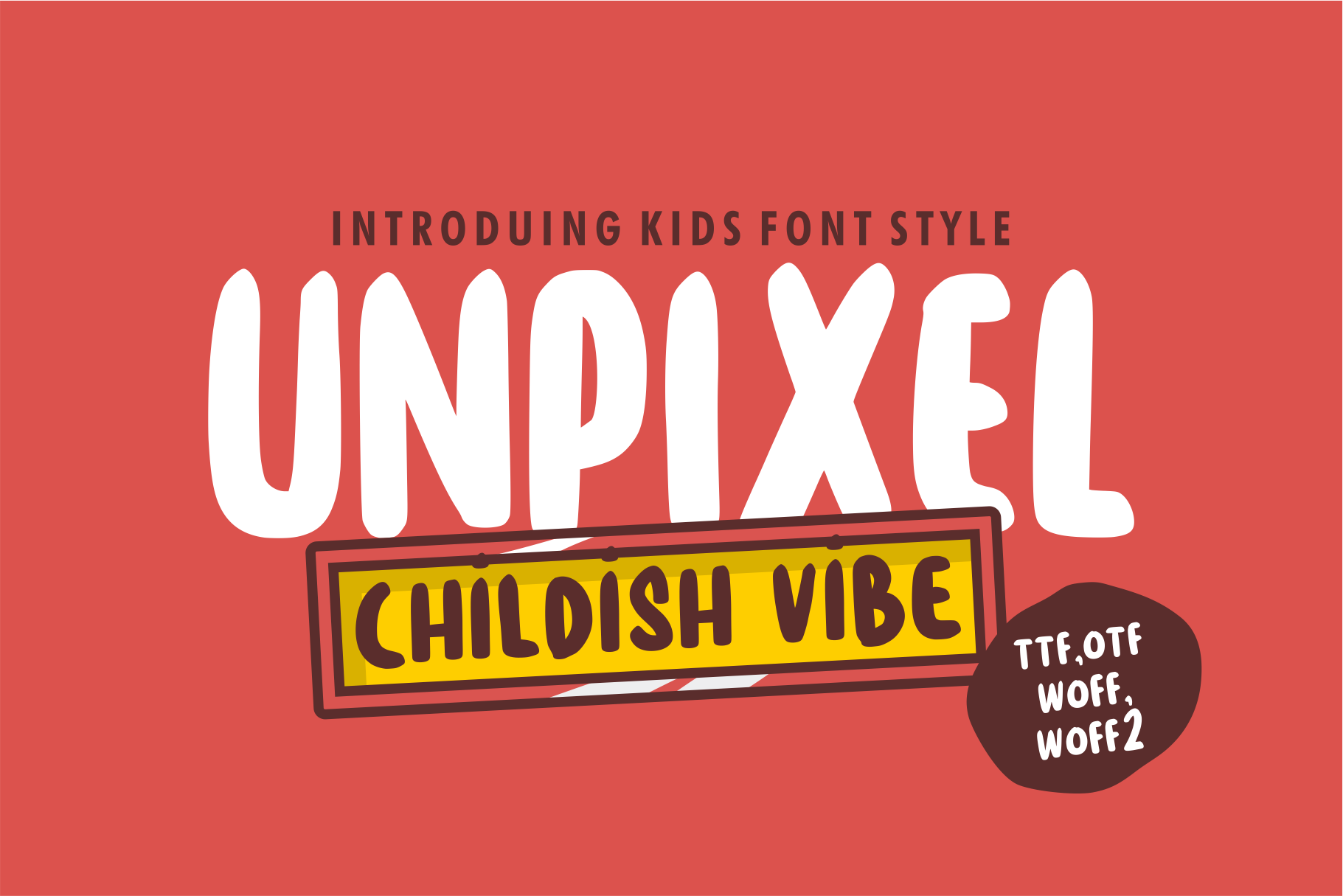
Unpixel Playful Handwritten Font
Unpixel is font handwritten kids style, this font is suitable for logos, cover titles, posters, invitations, advertising, and other design products.